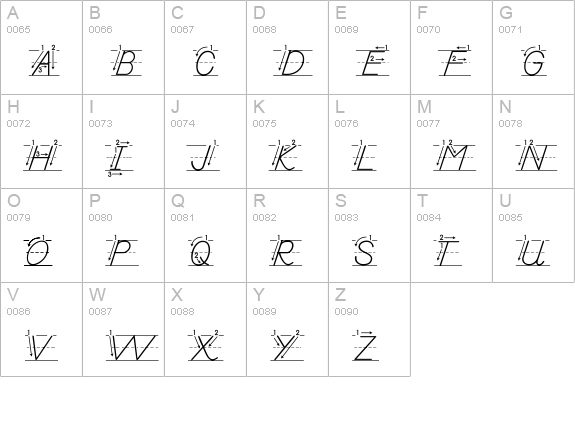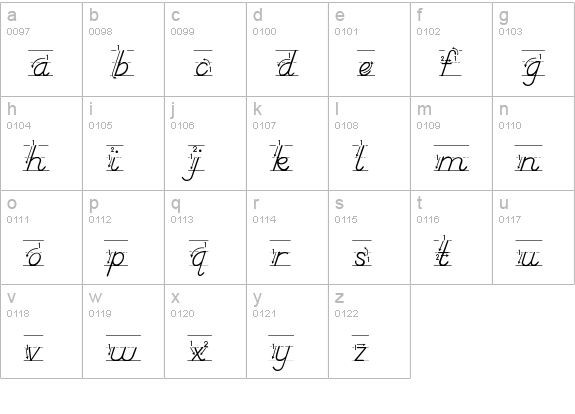
AbcDNManusArrow Font Details
Introducing the captivating AbcDNManusArrow font, a unique and stylish typeface that adds a touch of elegance to any design project. This font features intricate details and a modern aesthetic, making it perfect for a wide range of applications, from branding to social media graphics. The AbcDNManusArrow font is meticulously crafted with hand-drawn elements, giving it a charming and whimsical feel. What's even better is that this exquisite font is available for free download at FontsMarket.com. Whether you're a designer looking to enhance your projects or a creative individual in search of a fresh and eye-catching font, AbcDNManusArrow is the perfect choice. Don't miss out on the opportunity to elevate your designs with this stunning typeface today!